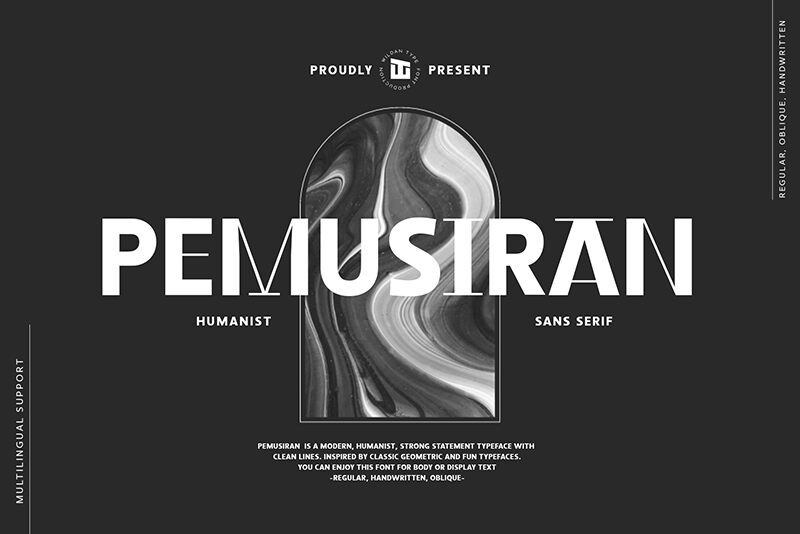
Pemusiran Regular
Pemusiran font was designed by Wildan Type, and it builds on a grid-based style using rectangular shapes. This geometric sans serif font is made of letters with a uniform thickness for simplicity across all glyphs, alongside an extraordinary readable effect.
The free sans serif font is now ready to use in your print or digital projects including ad banners, typography logos, letterhead and correspondence applications, and even live-size print posters.